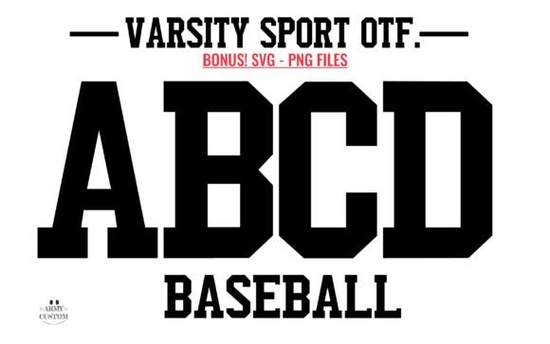
Designers, crafters, and small business owners looking for a unique way to add energy and personality to their projects might find the Varsity Sport Army Font to be a perfect fit. This font brings a sense of excitement and nostalgia, making it ideal for anything from sports-related branding to college-themed merchandise. Whether you're creating custom t-shirts, posters, or digital graphics, this font can help you capture the essence of school spirit and athletic enthusiasm.
If you're exploring fonts that blend style with functionality, you'll find that the Varsity Sport Army Font stands out. It’s designed with a university-style aesthetic that feels both modern and timeless. The bold strokes and dynamic shapes make it easy to read while still maintaining a strong visual impact. This makes it a great choice for headlines, logos, and other design elements where clarity and flair are important.
What Makes Varsity Sport Army Font Unique?
The Varsity Sport Army Font is more than just a typeface it's a statement. Its design draws inspiration from the energy of college campuses and sports arenas, giving it a lively and engaging look. The font includes a range of characters that maintain consistency in style, making it versatile for different types of projects. From team names to event banners, it adds a professional yet fun touch that resonates with fans and creators alike.
One of the key strengths of this font is its ability to evoke emotion. Whether you're designing for a sports team, a university event, or a personal project, the font helps convey a sense of community and excitement. It’s especially useful for print-on-demand sellers who want to offer products that feel authentic and meaningful to their audience.
How to Use Varsity Sport Army Font in Your Projects
There are many ways to incorporate the Varsity Sport Army Font into your work. For example, you could use it for social media graphics, promotional materials, or even packaging designs. Its bold and expressive style works well in both digital and print formats, making it a flexible choice for a variety of applications.
When using this font, consider pairing it with simpler typefaces to balance the design. For instance, combining it with a clean sans-serif font can create a contrast that highlights the uniqueness of the Varsity Sport Army Font without overwhelming the viewer. This approach also helps maintain readability, especially in larger text sizes.
Why Choose Varsity Sport Army Font?
For anyone involved in design, whether as a hobbyist or a professional, the Varsity Sport Army Font provides a fresh and exciting option. It’s not just about the look it’s about the feeling it brings to a project. Fans of sports and college culture will appreciate the attention to detail and the way the font captures the spirit of the game.
Small businesses and independent creators can benefit from using this font to differentiate their brand and connect with their audience. It’s a simple yet powerful tool that can elevate the overall look of any design. Plus, with its ease of use and availability, it’s accessible to designers of all skill levels.
Whether you're working on a sports-related project, a college-themed design, or something entirely different, the Varsity Sport Army Font has the potential to make your work stand out. Its combination of style, functionality, and emotional appeal makes it a valuable addition to any designer’s toolkit.
Before finalizing your design, take a moment to test the font in different contexts. See how it looks in various sizes and backgrounds, and make sure it aligns with the overall vision of your project. This will help ensure that the final result is both visually appealing and effective in communicating your message.
Consider experimenting with different color schemes and layouts to find the best way to showcase the Varsity Sport Army Font. The right combination can enhance its impact and make your design more engaging. Don’t hesitate to seek inspiration from other works that use similar fonts to get a better sense of what’s possible.
As you continue to explore new fonts and design techniques, remember that the right choice can make a big difference. The Varsity Sport Army Font is a great example of how a well-designed typeface can bring energy and character to any project. With its unique style and practical use, it’s definitely worth adding to your collection.
Quick Checklist:
- Test the font in different sizes and contexts.
- Pair it with complementary typefaces for balance.
- Explore similar fonts for variety and inspiration.
- Use it in projects that benefit from a bold and energetic look.